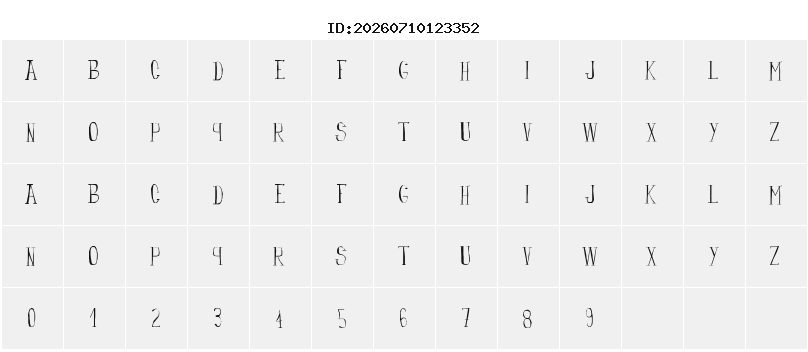
fanfarone Preview
• Font Name: fanfarone
• Font Style: fanfarone
• Full Font Name: fanfarone
• Designer: Ewen Prigent
• Manufacturer: Ewen Prigent
About fanfarone.ttf
fanfarone.ttf is a modern, elegant sans-serif font designed for ultimate readability and visual harmony. Perfect for branding, headlines, web design, and print materials.